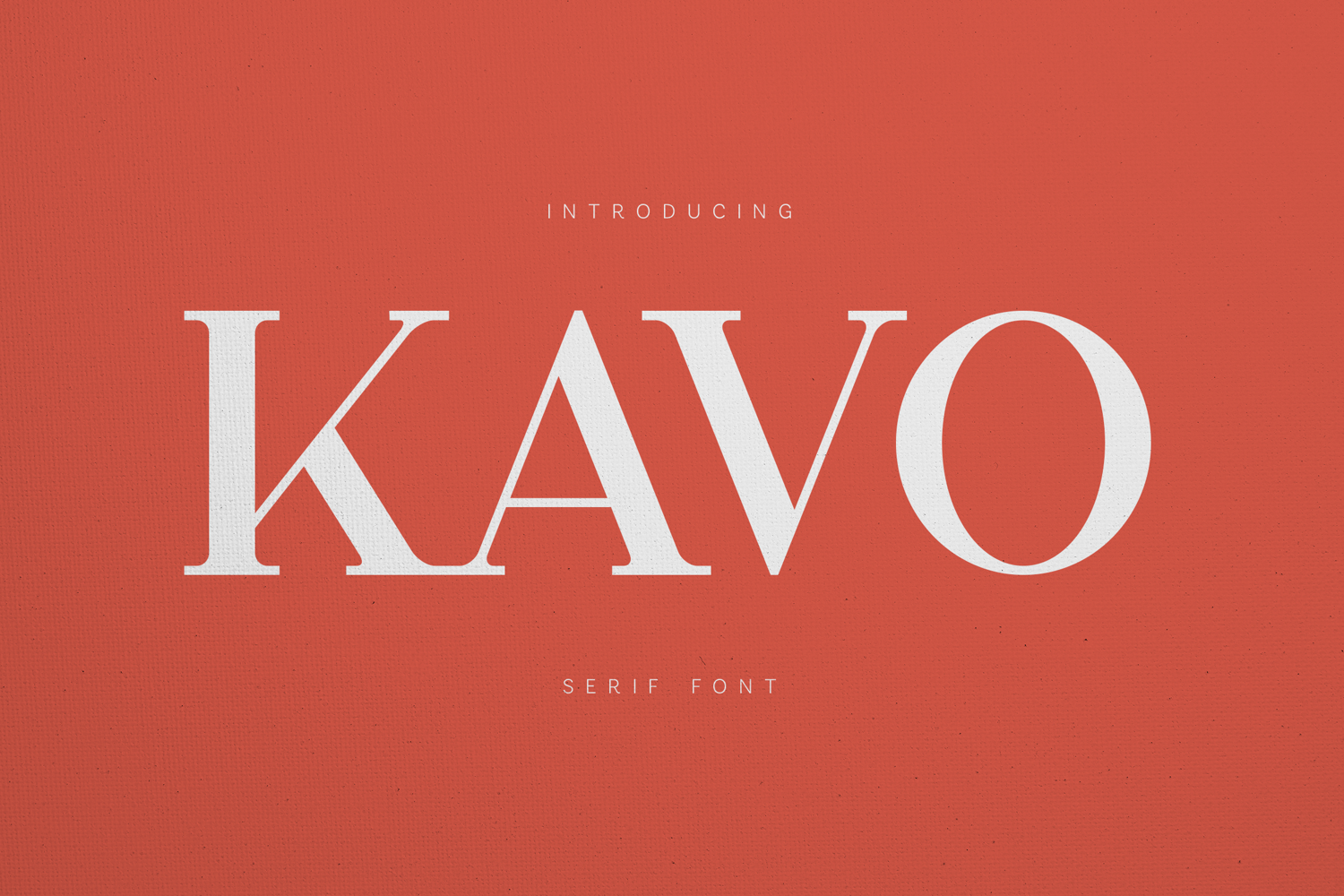
Kavo Elegant Modern Serif Font
Kavo is a sophisticated modern serif font that blends timeless elegance with contemporary refinement. Designed with graceful contrasts, clean proportions, and stylish details, Kavo delivers a luxurious aesthetic perfect for premium branding and editorial design.
Its versatile letterforms create beautiful headlines, logos, packaging, magazine layouts, invitations, book covers, beauty branding, and upscale marketing materials. The carefully crafted character set provides excellent readability while maintaining a distinctive high-end personality.
Whether you're building a luxury visual identity, designing an editorial masterpiece, or creating memorable branding, Kavo brings sophistication, confidence, and elegance to every project.
- Elegant Serif Design
- High-End Editorial Style